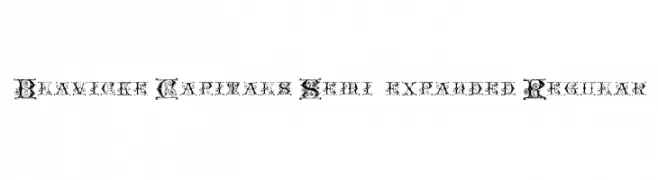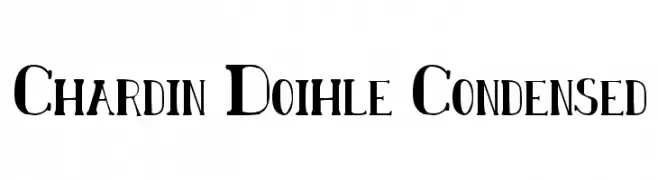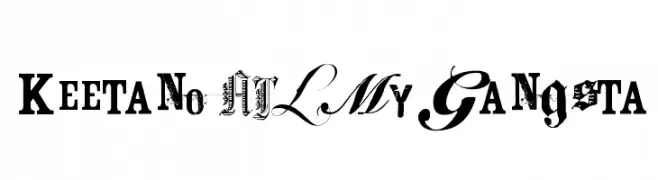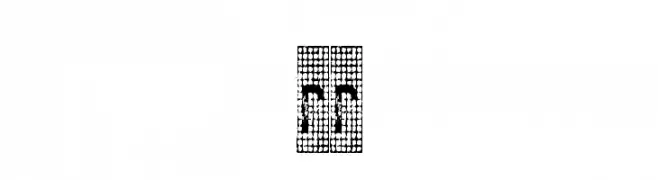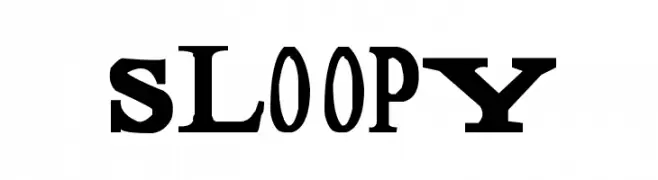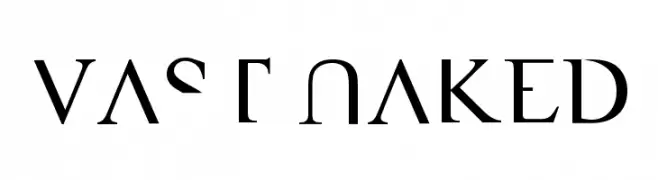
( Fonts by Paul Lloyd )
An ornate and decorative font with intricate swirls and a semi-expanded width.
( Fonts by Spork Thug Typography - Josh Wilhelm - www.lifewithouttaffy.com/taffy/blog )
A bold, vintage-style font with exaggerated serifs and dynamic strokes.
A bold, condensed font with high contrast and a vintage-modern blend.
( Fonts by Manfred Klein - manfred-klein.ina-mar.com )
A classic serif font with elegant flourishes and modern touches.
A bold, textured font with a pixelated, retro digital style.
( Fonts by Gyom Seguin - last-soundtrack.daportfolio.com )
A rugged, distressed font with a charred, gritty appearance.